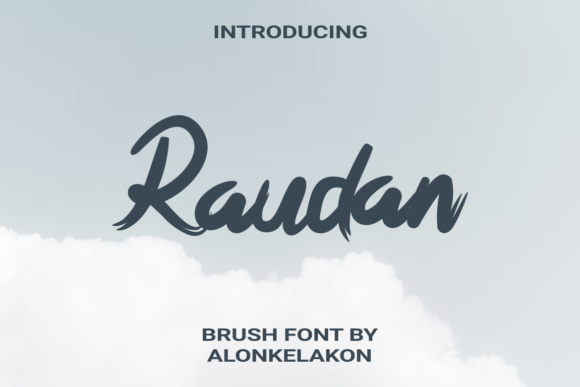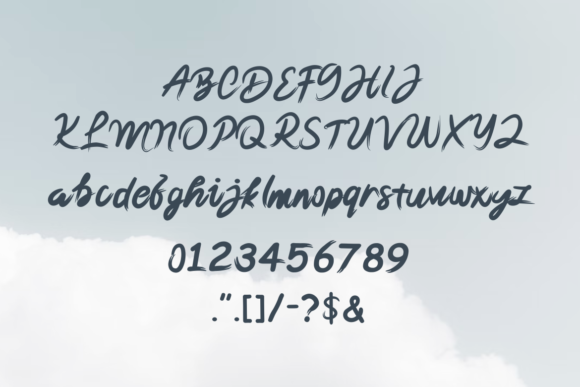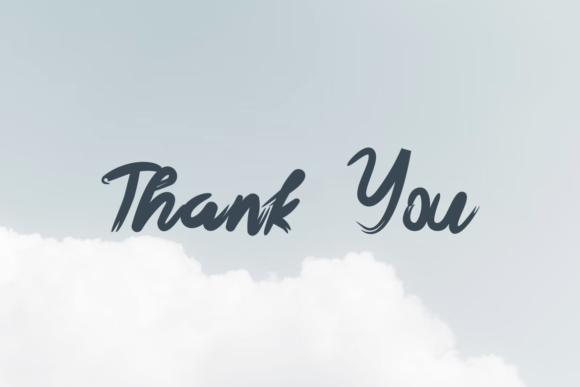
Raudan Font
About Raudan Font
“Raudan” emerges as a flowing, brushed script font that captures attention with its elegant design. The font’s beauty is particularly notable when applied to various design projects such as wedding invitations, thank you cards, quotes, greeting cards, logos, and business cards. Its unique touch adds a handcrafted feel that enhances the appeal of your designs.
The allure of “Raudan” lies in its ability to convey a sense of sophistication and authenticity through its carefully crafted brush strokes. Its flowing characters and elegant details contribute to an aesthetic that resonates with a touch of elegance and creativity. This font seamlessly adapts to different design contexts, ensuring its versatility shines through.
From evoking sentimentality in wedding invitations to adding a personalized touch to business branding, “Raudan” becomes a versatile tool. Its distinct design can elevate the visual impact of your projects, making them stand out with a touch of handcrafted charm.
Incorporating “Raudan” into your design endeavors means embracing its flowing and brushed attributes. By utilizing its unique charm, you’re enhancing the visual allure of your work and ensuring that your designs resonate effectively with your intended audience. This font becomes a reliable resource for infusing your creations with a touch of elegance and handcrafted authenticity, enhancing the overall impact of your designs.